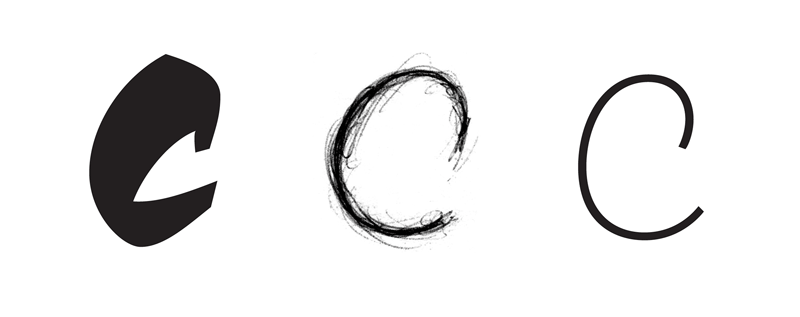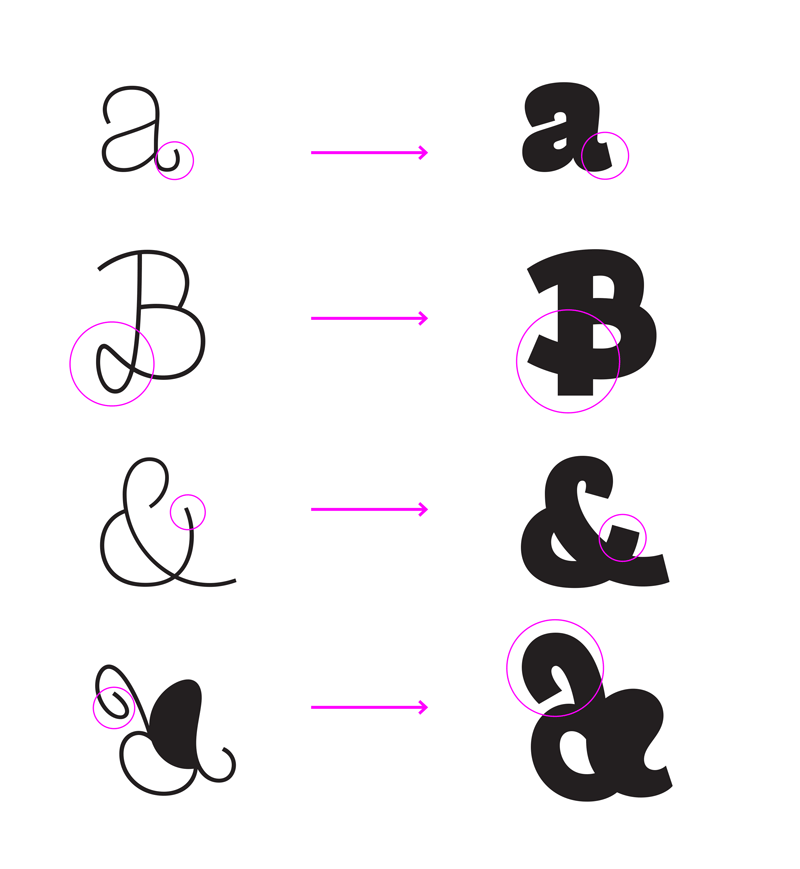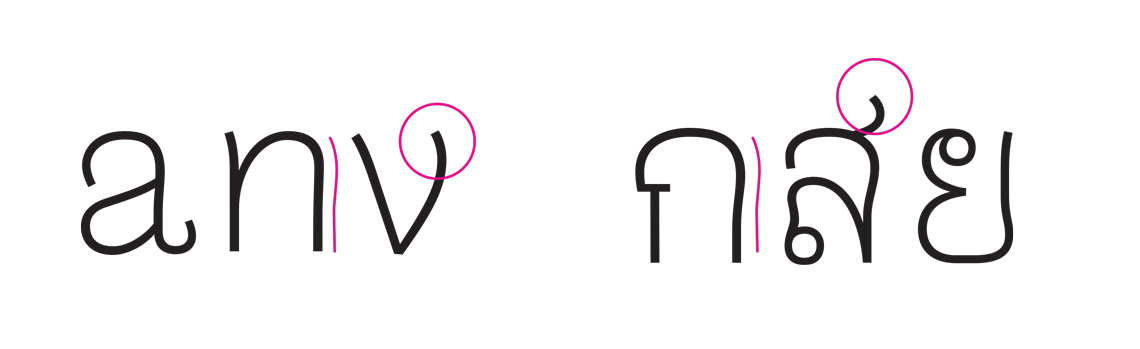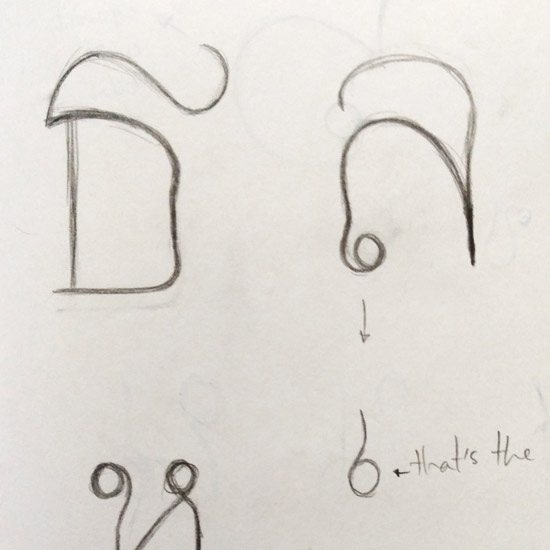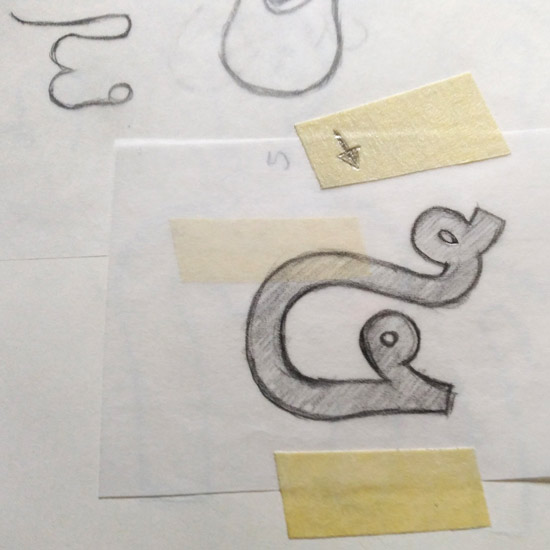
A sans like no other: designing Arlette
One of the most unique and invigorating multiscript typefaces in our catalogue is Arlette by Pilar Cano and Ferran Milan. It comes in Latin and Thai and is a category-expanding sans serif font that’s part experiment and part modern update. In this article Pilar gives a look at its inspiration and design process, from sketch to finished work.
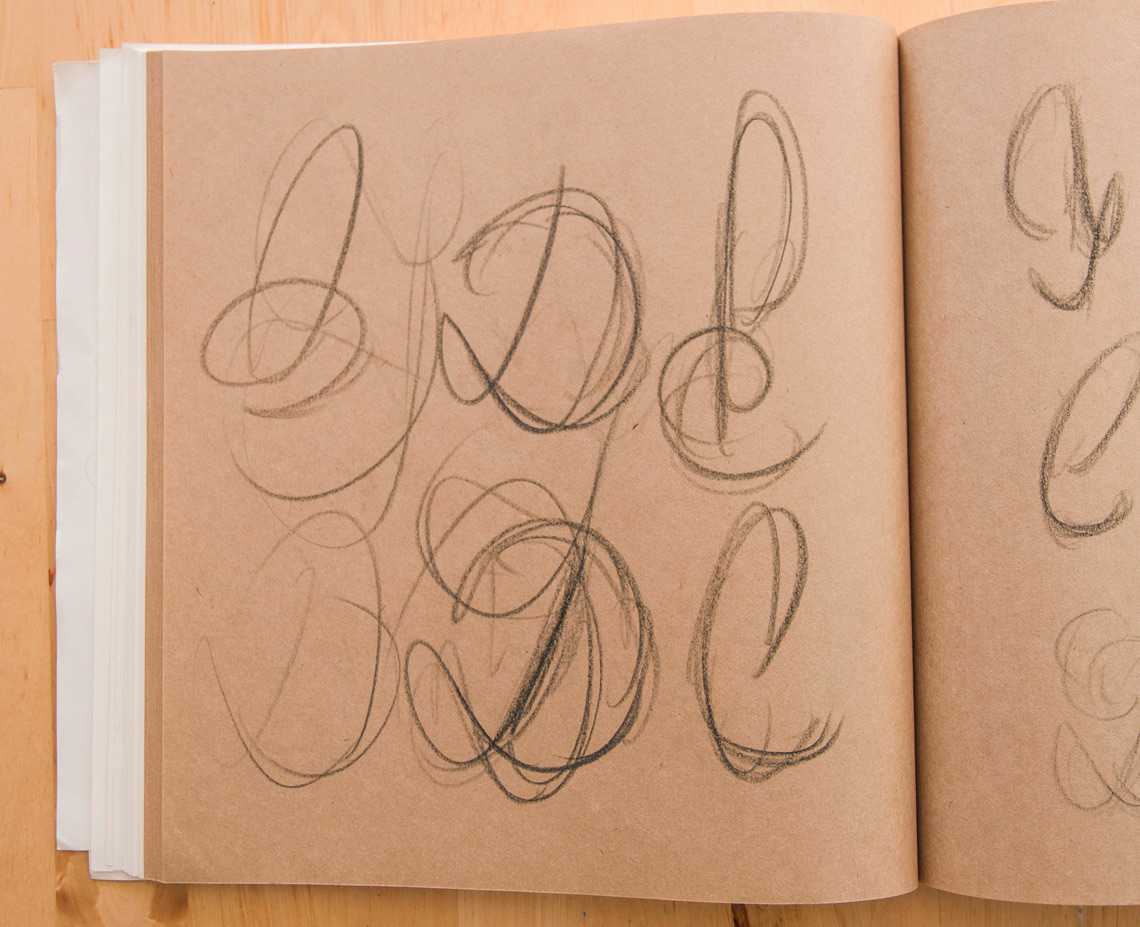
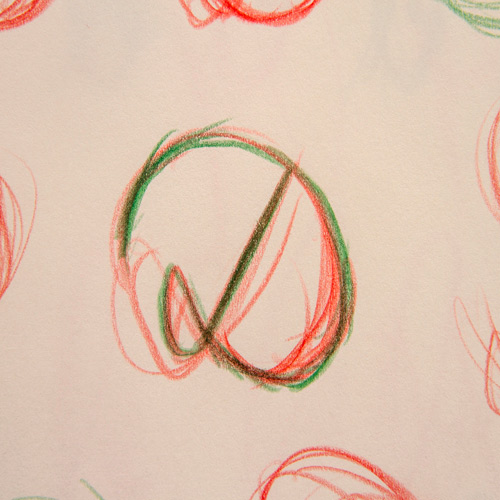
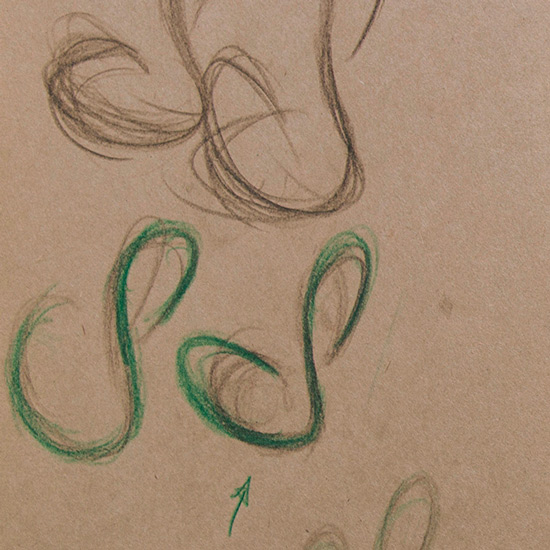ArletteEarly sketches of Arlette’s swashes, 2014
Choc full of inspiration
For a long time we had been captivated by the beauty of Roger Excoffon’s typefaces and his artistic background present in all his work. He had a unique way of designing, full of energy and experimentation. This approach of working on type design as if it was an art piece is what caught our attention to the point of wanting to design a typeface using the same approach.
So the main concept of Arlette’s development is Roger Excoffon’s work: in general his experimental approach to type design, more specifically his typeface Choc, and even more specifically its lowercase ‘c’. Its fast stroke movement and its energy fascinated us.
Choc, typeface designed by Roger Excoffon for Fonderie Olive, in a type specimen from the 1950s. Image from Letterform Archive.
But inspiration is just the starting point. As soon as we had something we thought was worth developing, we abandoned Choc and started working just from the ‘c’ of Arlette. It all came along very naturally after that.
Novelty for all
We also wanted to experiment with the weights of the family, but with having such novel shapes already, it was a challenge to push it to its limits. Excoffon’s body of work is filled with handwriting typefaces. In a similar way, we pushed the character set by experimenting with swashes. We took them out of their natural italic environment and placed them also in the romans.
Furthermore, we developed swashes for accented and special glyphs, adding this feature to all the languages we cover instead of relegating it to a few languages. To implement those complex shapes into the heavier upright styles was an interesting experiment, and for it to be successful we had to find a way to simplify some shapes in the darkest weights.
Our second inspiration source was the concept of the sans serif itself: what is it that defines a sans and what makes them so enduring and useful? Like all design, font use goes through cycles and sans serifs have grown in popularity since the 1990s. This caused many sans serif designs — often similar and uninspiring — to flood the market; we find these are of little interest unless they are needed for a specific purpose.
So combine the energy of Excoffon’s ‘c’ with our belief that more (and different!) could be done in the sans serif genre, and Arlette is our answer. It is our interpretation of a sans serif and a reaction to bland uniformity.
Thai it together
Arlette’s Thai was an even more complex experiment. It is always challenging to match two very different writing systems under the same type family, even more so in this case where the Latin is already quite complex. We took the same fast stroke curves and extravagance from the Latin, which adapted very naturally to the Thai.
It is important when matching scripts not to impose anything from one onto the other. What can be translated is the way curves are built, their flow and energy, some details like the terminals, and the overall colour of the text. Those three elements (plus matching the proportions) are enough for the scripts to register as one family.
It is also important to take into account the tool traditionally used to write each specific script. In this case Thai uses a stylus, which is perfect for a Latin sans serif since the stylus produces monolinear letterforms.
Type of curves and terminals are crucial tools in the relationship between two different writing systems.
Sketches exploring the possibilities for Arlette Thai, 2015
Flair trade
We also looked into adapted the idea of the swashes to the Thai writing system. We did not want to impose a Latin feature onto another script so we looked at handwritten palm leaves, searching for clues based in Thai tradition. Are swashes normal in Thai or are they not accepted? We would have been fine not having these decorative characters in the Thai, but we found that some historical characters had a purposeful, added flair.
Palm leaf manuscript: Manual for pressure massage, believed to have been produced at Wat Phrachetuphon, Bangkok, in the first half of the 19th century. Image British Library.
So for Arlette Thai we designed a set of alternate characters inspired by those handwritten forms, only applied in those glyphs which made sense according to what we saw in the palm leaf manuscripts. The marks above characters appear to be very playful in those early examples, with elongated strokes and exaggerated features — exactly what Arlette needed!